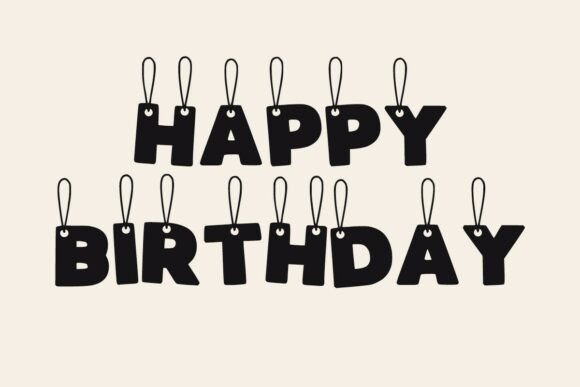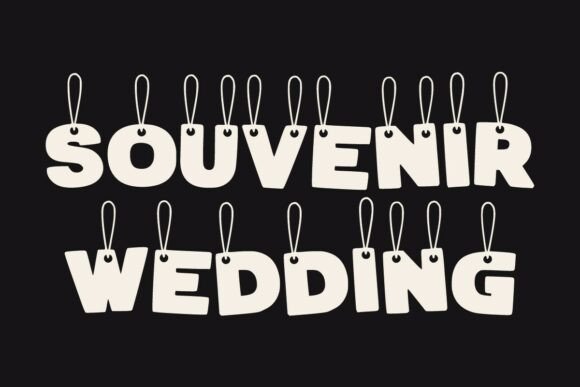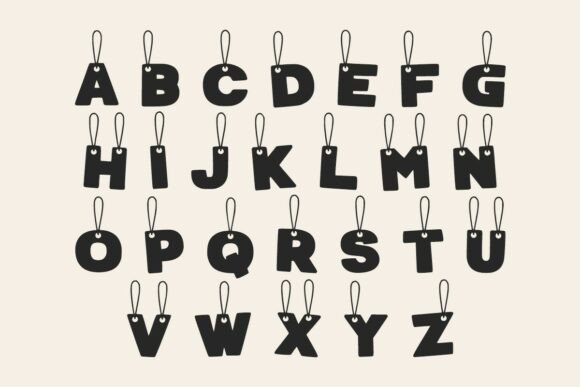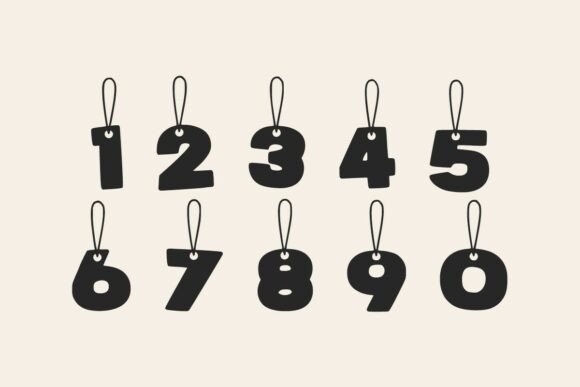
Introducing Hangtag Cutes Font: Add a Touch of Youth and Joy to Your Designs
Are you a designer or crafter looking for a unique and playful font to elevate your promotion materials, party invitations, banners, and more? Look no further than Hangtag Cutes Font! This hanging shape decorative font is perfect for adding a touch of youth and joy to any design.
What is Hangtag Cutes Font?
Hangtag Cutes Font is a decorative font designed to add a playful and whimsical touch to your designs. Its hanging shape design makes it perfect for use on price tags, party invitations, banners, and other promotional materials. The font’s unique and eye-catching design is sure to grab attention and make your designs stand out.
Features of Hangtag Cutes Font
- Unique Hanging Shape Design: Hangtag Cutes Font features a distinctive hanging shape design that adds a touch of playfulness to any design.
- Perfect for Promotional Materials: The font is ideal for use on price tags, banners, and other promotional materials.
- Youthful and Joyful: The font’s playful design is sure to evoke feelings of youth and joy, making it perfect for designs that require a fun and lively touch.
Uses of Hangtag Cutes Font
Hangtag Cutes Font is versatile and can be used in a variety of design applications, including:
- Price Tags: Add a touch of playfulness to your price tags with Hangtag Cutes Font.
- Party Invitations: Make your party invitations stand out with the font’s unique and eye-catching design.
- Banners: Use Hangtag Cutes Font to create eye-catching banners that grab attention.
- Gatherings: Add a touch of youth and joy to your gathering designs with the font’s playful design.
- Social Media Graphics: Use Hangtag Cutes Font to create engaging social media graphics that stand out.
Benefits of Using Hangtag Cutes Font
Using Hangtag Cutes Font in your designs offers several benefits, including:
- Increased Visual Appeal: The font’s unique design is sure to grab attention and make your designs more visually appealing.
- Improved Brand Identity: Hangtag Cutes Font can help you establish a playful and youthful brand identity.
- Easier Design Process: The font’s easy-to-use design makes it simple to incorporate into your designs.
Tips for Using Hangtag Cutes Font
Here are some tips for getting the most out of Hangtag Cutes Font:
- Use it Sparingly: Use the font sparingly to avoid overwhelming your design.
- Pair it with Other Fonts: Pair Hangtag Cutes Font with other fonts to create a unique and visually appealing design.
Hangtag Cutes Font is a unique and playful decorative font that’s perfect for adding a touch of youth and joy to your designs. With its hanging shape design and easy-to-use features, it’s ideal for designers and crafters looking to elevate their promotion materials, party invitations, banners, and more. Try Hangtag Cutes Font today and take your designs to the next level!